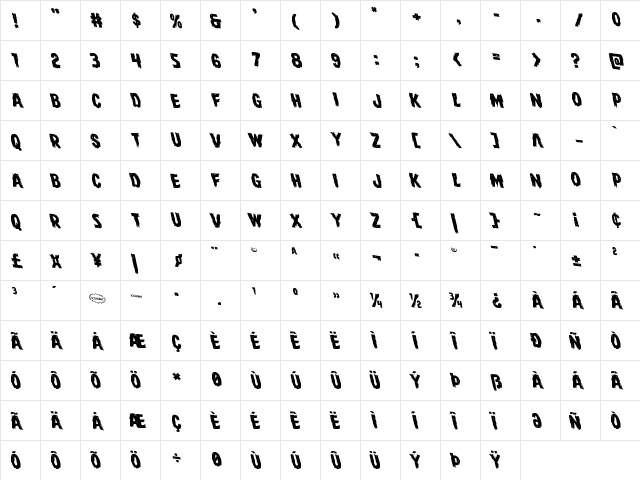
Dire Wolf Rotaleft Italic
Design Context for Dire Wolf Rotaleft Typeface
Dire Wolf Rotaleft is a composed and adaptable typeface that performs quietly and consistently across a wide range of design contexts. The slanted form adds forward momentum and visual energy.
Pro Tip: Use Dire Wolf Rotaleft for emphasis, pull quotes, and subheadings where its slanted energy can add rhythm to the layout.